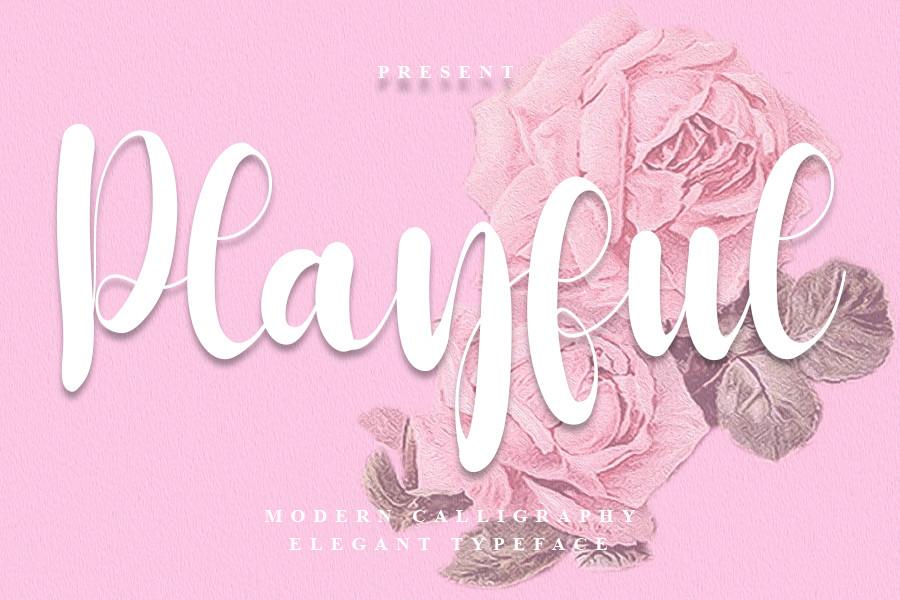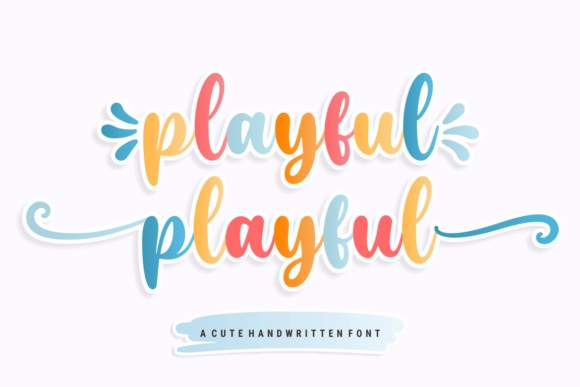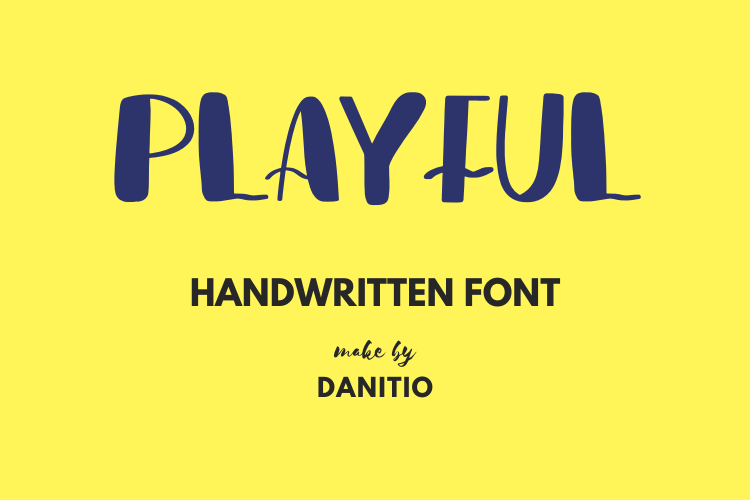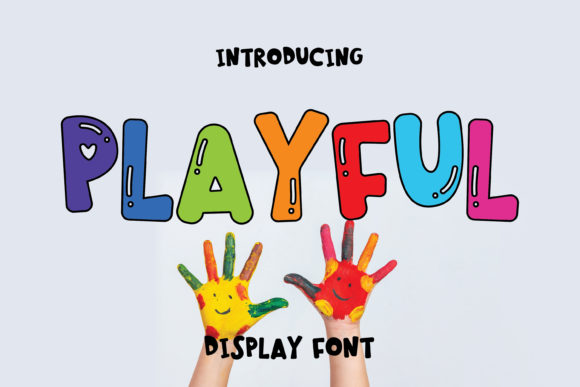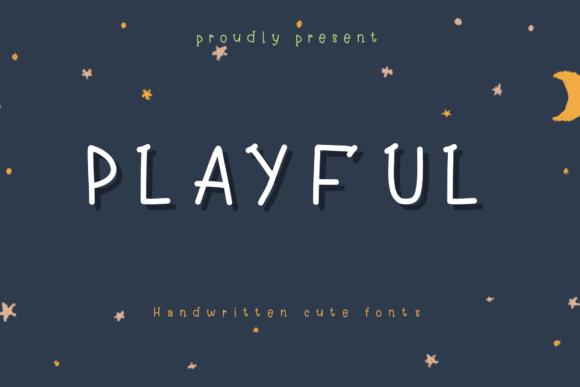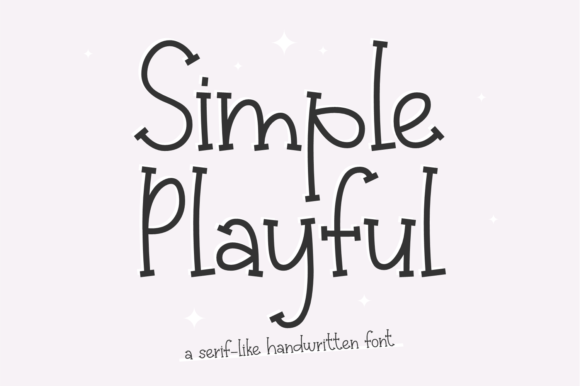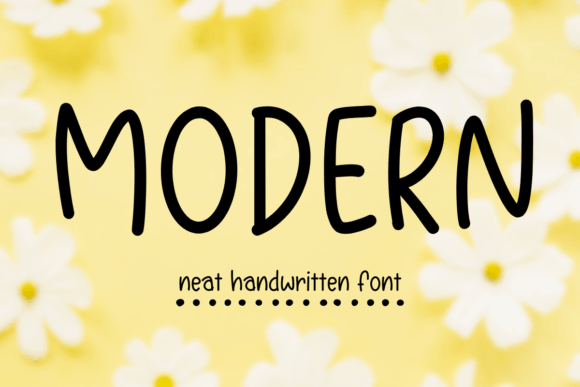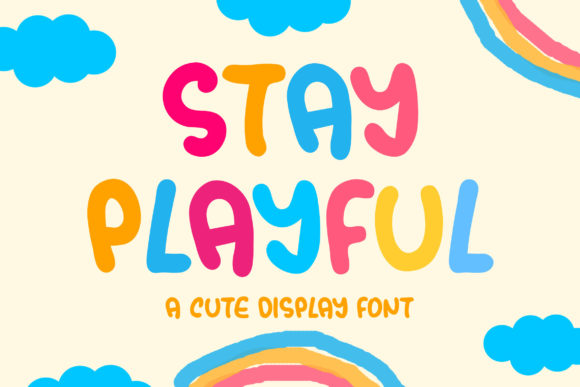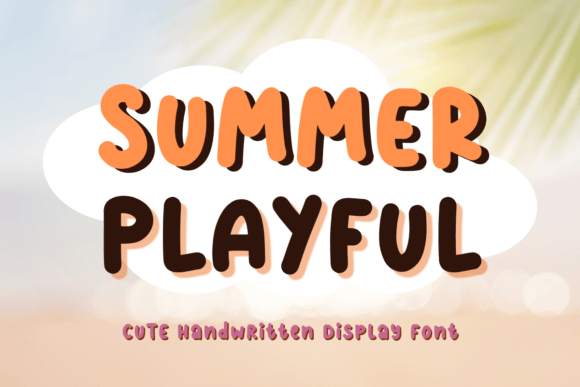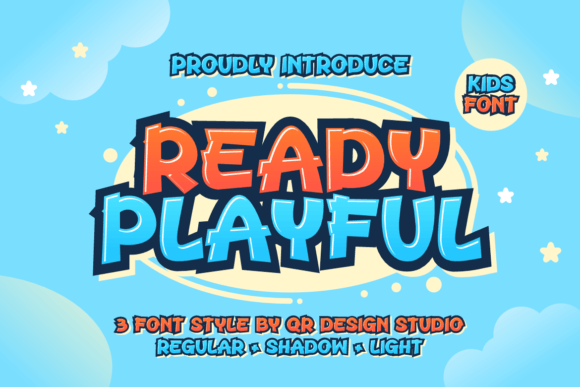
Discover the top 36 playful font trends for designers in 2026, featuring bold, whimsical, and creative typefaces perfect for branding, content creation, and product listings. This curated list helps you stay on-trend and improve visual appeal using recommended fonts from trusted platforms like Creative Fabrica.
Why Playful Fonts Matter for Designers in 2026
Playful fonts are shaping the visual language of 2026, becoming essential for designers, creators, Etsy and Amazon sellers, and bloggers seeking to capture attention and foster engagement. With a global surge in branding, digital product packaging, and online listings, the right playful font instantly communicates originality, friendliness, and approachability. These trend-forward typefaces not only set brands apart but also create memorable experiences across social media, websites, and print. The demand for fresh, on-trend fonts has never been higher—especially with international appeal spanning the US, UK, EU, and beyond. Whether you’re refreshing your brand identity or curating listings for e-commerce, our expertly vetted selection gives you the creative edge you need. Explore this global guide and elevate your next project with fonts guaranteed to stand out. 25 Most Popular Minimalist Fonts for Canva (2026 Picks)
Top 5 Playful Fonts for Designers in 2026: Quick Comparison
| Playful Font by Inermedia STUDIO | Hand-drawn, bubbly | Kids’ branding, party invites | Commercial |
| Playful Font by jinanstd | Rounded, cheerful | Social banners, playful logos | Commercial |
| Playful Font by danita.kukkai | Whimsical, decorative | Wedding stationery, Etsy | Commercial |
| Super Retro and Playful Font Bundle | Retro, bold, fun | Retro branding, event posters | Commercial |
| Playful Font by Pila Studio | Organic, hand-crafted | Restaurant menus, packaging | Commercial |
36 Playful Font Trends for Designers in 2026
Playful Font by Inermedia STUDIO · Creative Fabrica
This font delivers bubbly, hand-drawn lettering that exudes joy and friendliness. Its energetic presence makes it an ideal choice for children’s branding, party invitations, and whimsical product packaging. The rounded shapes and cheery mood instantly grab attention while remaining legible for print and digital media.
Playful Font by jinanstd · Creative Fabrica
With its rounded corners and lively shapes, this font radiates positivity and approachability. It’s a top pick for designers creating social media banners, playful logos, or youth-focused campaigns. Its versatility allows it to enhance everything from online ads to stickers and greeting cards.
Playful Font by danita.kukkai · Creative Fabrica
This decorative, whimsical typeface is perfect for creating unique wedding invitations, event stationery, or expressive Etsy shop banners. The playful ligatures and creative flourishes give designs a bespoke, handcrafted touch, instantly making your text stand out.
Super Retro and Playful Font Bundle Bundle · Creative Fabrica
This bundle offers retro flair with a playful twist, combining bold personalities and nostalgic quirks. Use these fonts to create throwback event posters, fun brand logos, or retro-inspired apparel graphics that demand notice and set a positive tone for audiences.
Playful Font by Pila Studio · Creative Fabrica
This organic, hand-crafted font gives projects an approachable and creative edge. It works beautifully for restaurant menus, product packaging, and lifestyle blogs, delivering a laid-back authenticity perfect for brands embracing handmade or artisanal aesthetics.
Playful Font Bundle Bundle · Creative Fabrica
This bundle brings together multiple playful typefaces, each with its own style and energy. Suitable for craft projects, DIY invitations, and diverse business needs, it guarantees you’ll always have a perfectly fun font at your fingertips—no matter the design brief.
Playful Font Bundle Bundle · Creative Fabrica
This collection is perfect for designers looking for flexibility, offering a series of lively, interesting fonts. Whether for classroom signs, kids’ party printables, or animated branding, this bundle ensures your toolkit is fresh and full of personalities.
Playful Font by Danika D. · Creative Fabrica
With quirky forms and a spirited vibe, this font brightens up children’s books, school flyers, and creative business signage. Its distinct character ensures messages feel upbeat and memorable, elevating playful product packaging or marketing visuals.
Simple Playful Font by Riman (7NTypes) · Creative Fabrica
This no-fuss playful font keeps things clear and energetic, perfect for infographics, educational materials, or minimal web designs. Its straightforward but joyful feel caters to creatives who want attention-grabbing results without visual clutter.